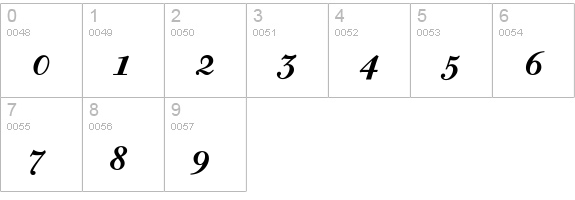
Bodoni Old Face BE Medium Italic Oldstyle Figures Font Details
Bodoni Old Face BE Medium Italic Oldstyle Figures is a balanced, medium-weight, italic variant in the Bodoni typeface family \xE2\x80\x94 well suited to sub-headlines, navigation, and balanced editorial work.
Bodoni Old Face BE Medium Italic Oldstyle Figures font exudes elegance and sophistication with its classic design and graceful italic style. The oldstyle figures add a touch of vintage charm, making it ideal for projects that require a timeless aesthetic. This font is perfect for creating elegant invitations, sophisticated logos, or refined editorial designs. And the best part? Bodoni Old Face BE Medium Italic Oldstyle Figures font is available for free download at FontsMarket.com. Embrace the beauty of this exquisite typeface and elevate your creations with its timeless appeal.